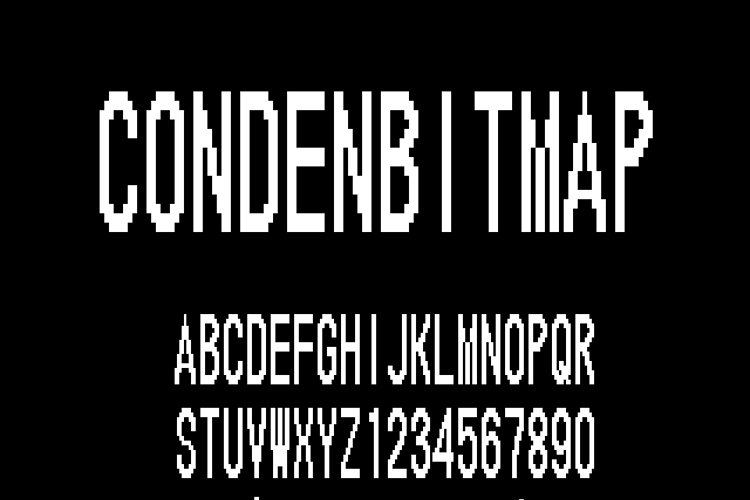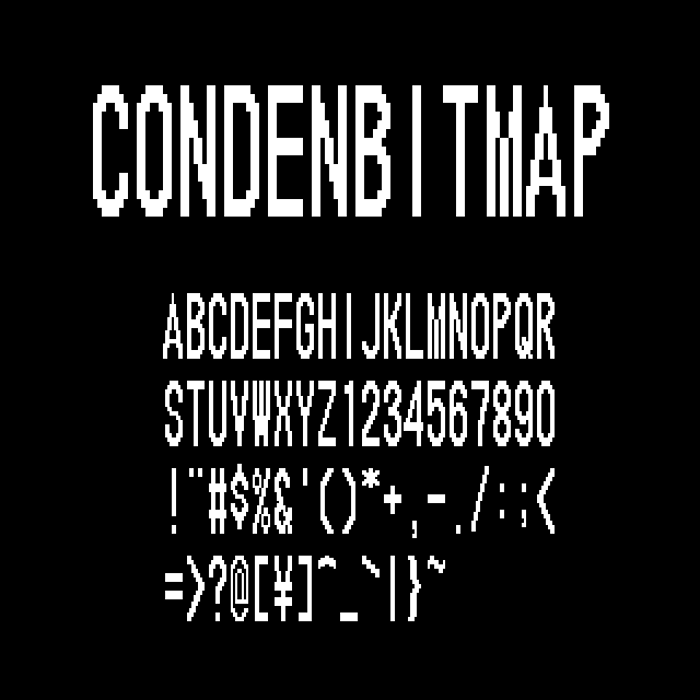
CondenBitmap Font
This is a Really slender fonts. I think that This font is not practicability. if you use this font,I will be really happy.
I love it, quite a nice minecraft-ish look. I will use it for my twitter. (Not spam, just proof of use)